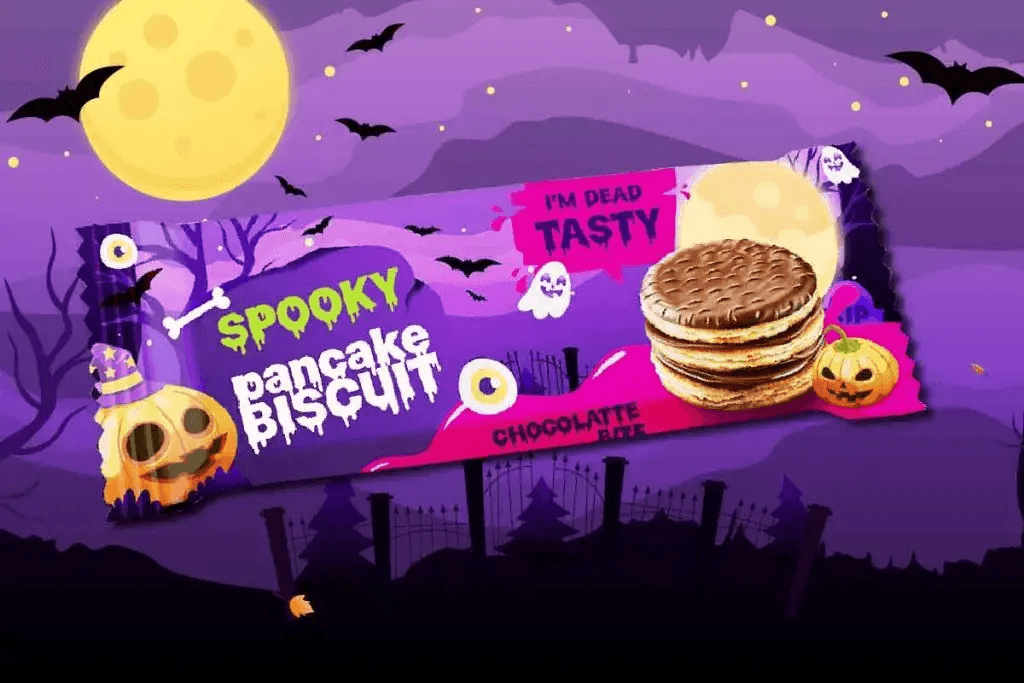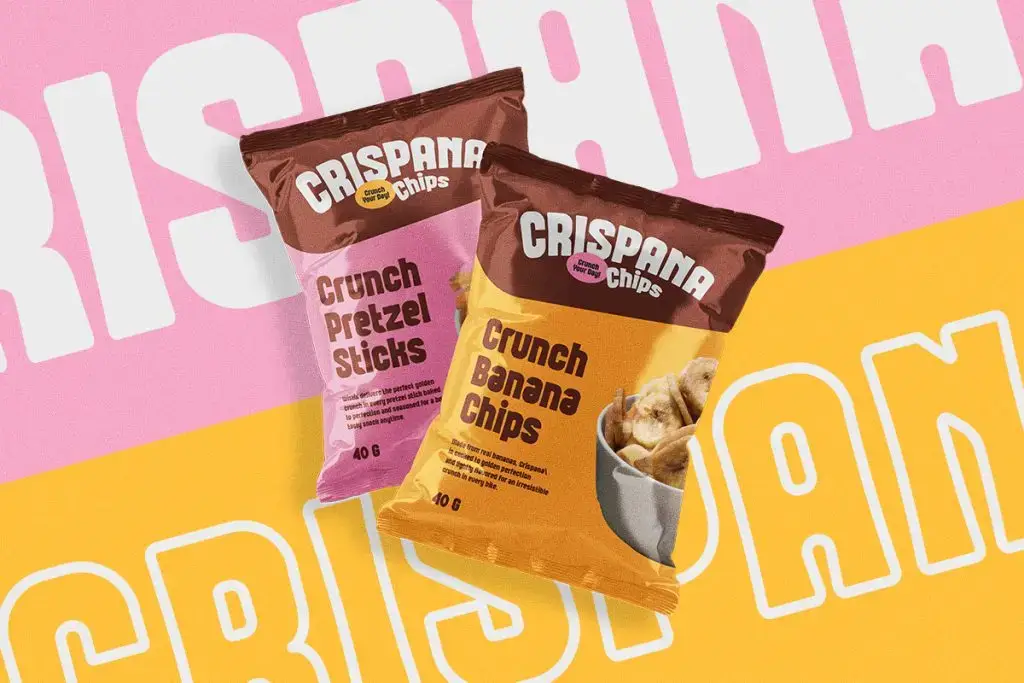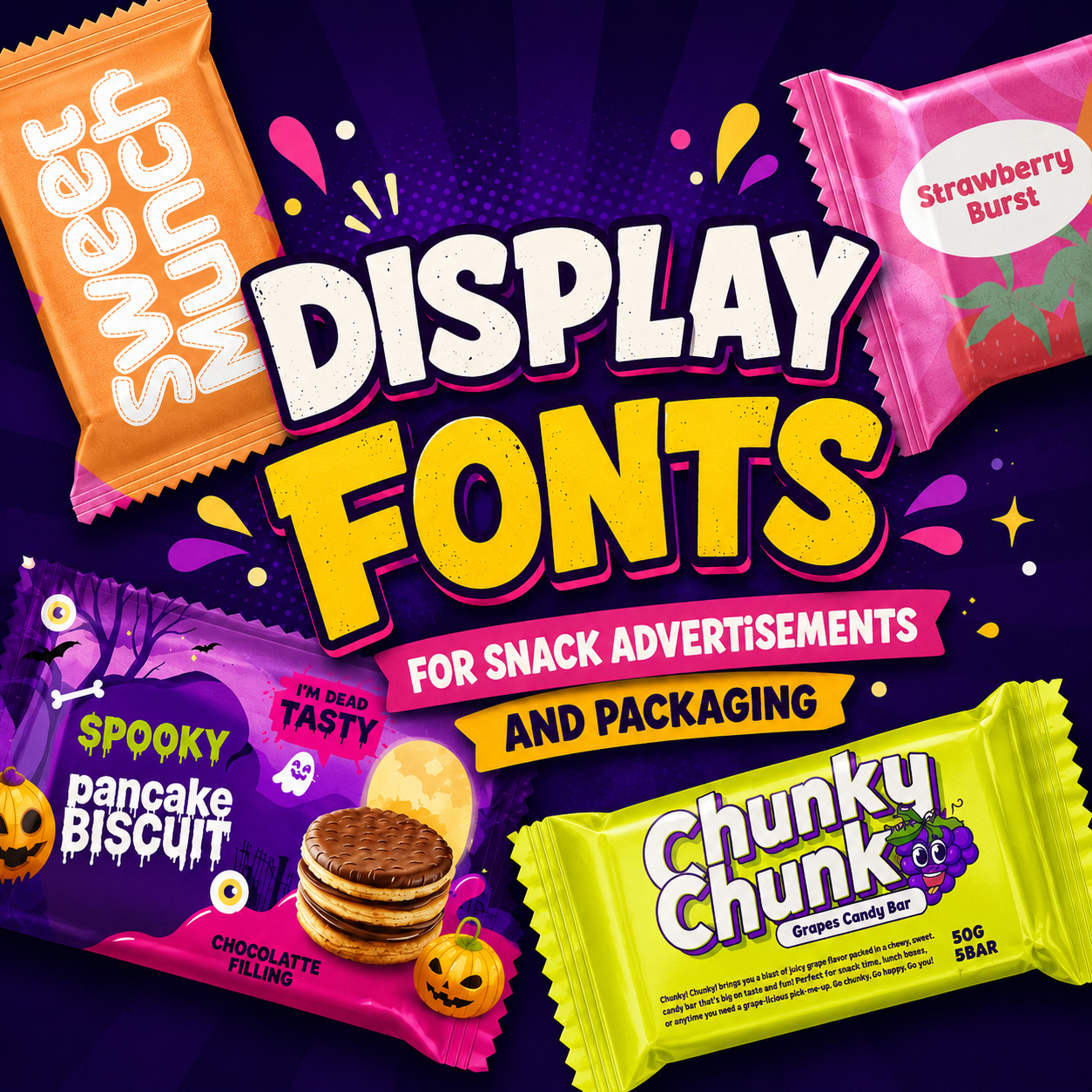
Display fonts for snack advertisements are one of the most important visual elements in modern food branding. In the competitive snack industry, packaging needs to grab attention instantly, especially on crowded store shelves and digital marketplaces. A unique display font can make snack packaging look more playful, delicious, bold, or memorable within seconds.
From candy wrappers and cookie boxes to fun drink labels and social media promotions, typography helps create emotional connections with customers. The right display font can communicate whether a snack is sweet, crunchy, fun, nostalgic, or even adventurous. In this article, we’ll explore why typography matters in snack branding and recommend five standout fonts: Boldova, Chubzy, Glibby, Slime Rage, and Snaklet.
Why Typography Matters in Snack Packaging
Creating a Strong First Impression
When customers walk through a supermarket aisle, they usually make purchasing decisions very quickly. Packaging design plays a huge role in attracting attention, and typography is often the first thing people notice.
A playful font can make snacks feel more fun and family-friendly, while a chunky retro font can create nostalgia and excitement. Good typography helps brands stand out from competitors and makes products easier to remember.
Building Brand Personality
Fonts help communicate a snack brand’s personality. For example:
- Rounded fonts often feel cheerful and kid-friendly.
- Bold retro fonts create energetic and nostalgic vibes.
- Dripping or slime-inspired fonts feel experimental and playful.
- Thick, chubby lettering can make snacks look indulgent and satisfying.
Choosing the right font helps customers immediately understand the mood and style.
Improving Packaging Design
Typography is not only decorative. It also improves readability and visual balance in packaging layouts. A strong display font can work perfectly for:
- Product names
- Promotional headlines
- Limited edition labels
- Snack advertisements
- Social media graphics
- Food truck branding
- Menu boards
That’s why many successful snack brands invest heavily in typography design.
Best Display Fonts for Snack Advertisements
Here are five creative fonts that work beautifully for snack advertisements and packaging designs.
1. Boldova
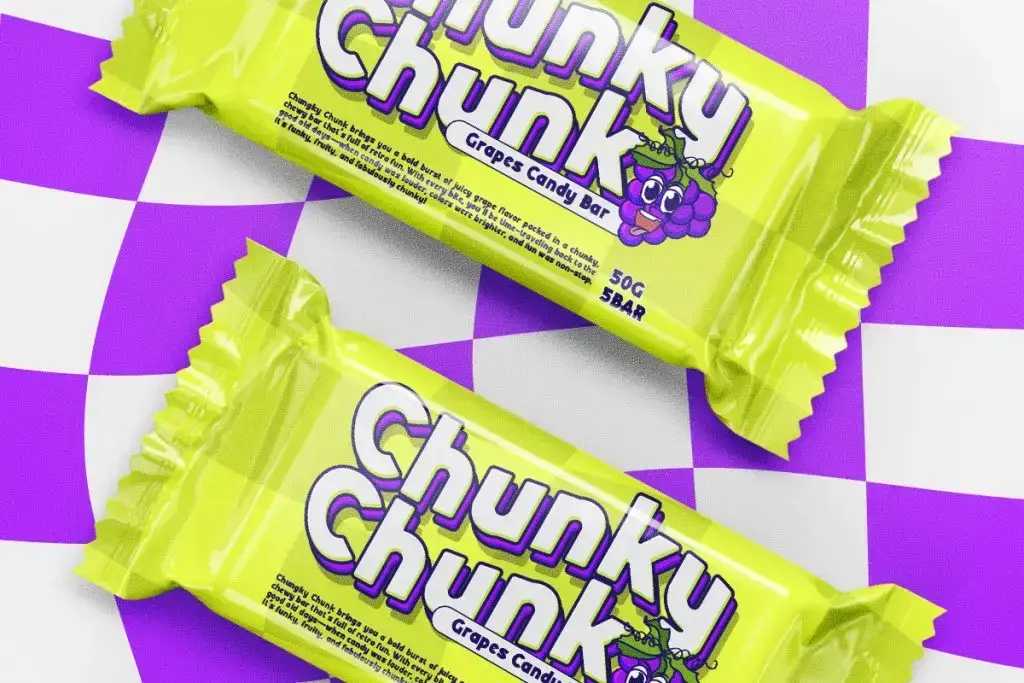
Font Overview
Boldova is a chunky retro-inspired display font with thick, rounded lettering, playful shadows, and vibrant energy. Its funky style instantly evokes a nostalgic feeling reminiscent of vintage snack advertisements from the 70s and early 90s.
The bold shape and layered shadow effect make the font highly visible, even from a distance. Boldova feels energetic, youthful, and excited, making it ideal for brands targeting younger audiences.
Why Boldova Works for Snack Packaging
- Thick bold letters create strong shelf visibility.
- Funky retro style adds nostalgic charm.
- Great for candy, chips, popcorn, and soda branding.
- Highly eye-catching for advertisements and social media.
Best Use Cases
Boldova works perfectly for:
- Candy packaging
- Retro snack branding
- Popcorn advertisements
- Fun beverage labels
- Youth-oriented snack campaigns
Its energetic appearance helps products look playful and impossible to ignore.
2. Chubzy
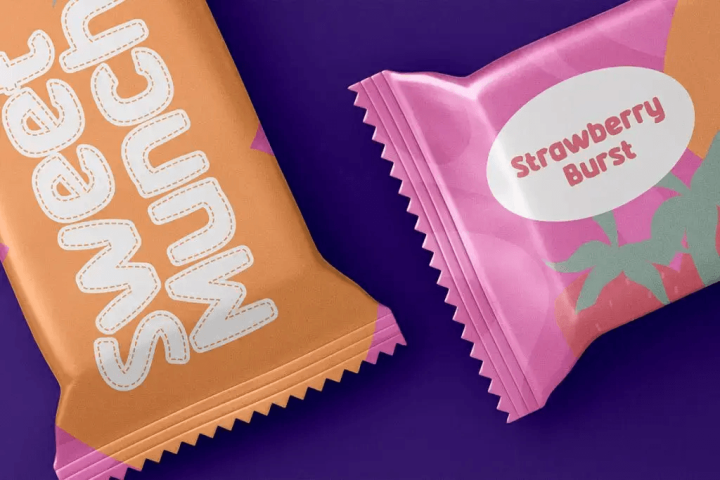
Font Overview
Chubzy is a soft, rounded display font with oversized bubble-like characters. The thick typography creates a warm and friendly feeling, making snacks appear more delicious and approachable.
The font has a cheerful, cartoon-like personality that fits perfectly with colorful packaging and playful branding.
Why Chubzy Works for Snack Packaging
- Rounded shapes create a soft and sweet impression.
- Excellent for kid-friendly snack products.
- Bold letters improve readability on packaging.
- Works beautifully with colorful illustrations and mascots.
Best Use Cases
Chubzy is ideal for:
- Cookie packaging
- Ice cream branding
- Sweet dessert labels
- Kids’ snack products
- Bubble tea advertisements
Its chubby design makes products feel comforting, fun, and satisfying.
3. Glibby
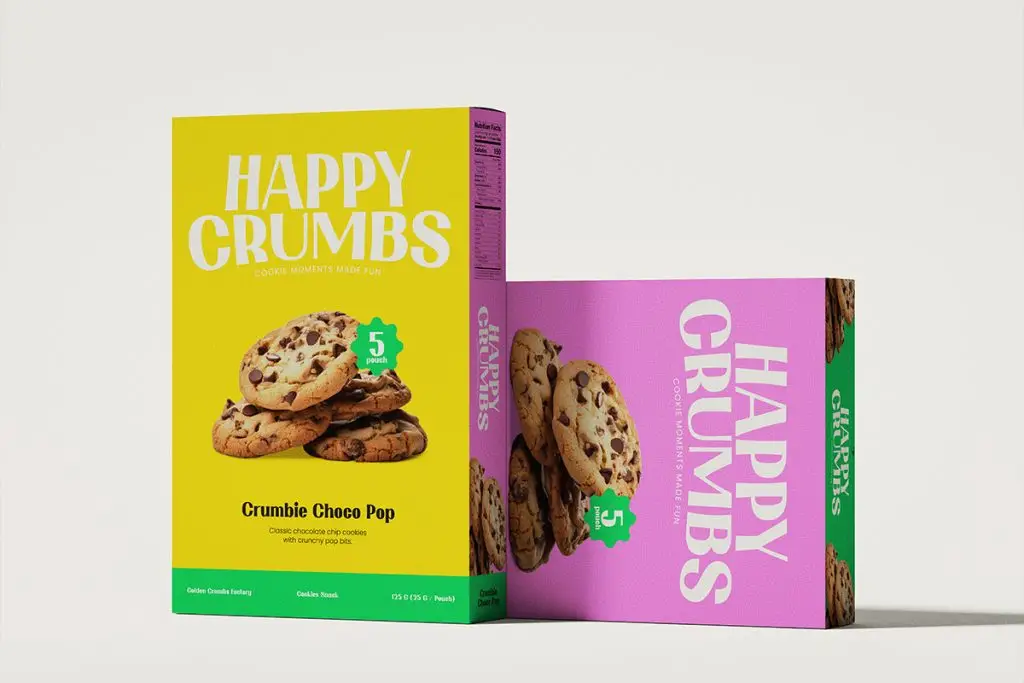
Font Overview
Glibby is a clean and quirky display font designed for playful branding projects. Its tall, bold characters and smooth curves give it a cheerful and modern personality.
Compared to heavier retro fonts, Glibby feels cleaner and more versatile while still maintaining a fun appearance.
Why Glibby Works for Snack Packaging
- Friendly shapes create approachable branding.
- Great balance between playful and professional.
- Perfect for modern snack brands and cafes.
- Easy to read on labels and digital advertisements.
Best Use Cases
Glibby works well for:
- Bakery logos
- Snack café branding
- Cookie snack packaging
- Candy advertisements
Fonts like Boldova, Chubzy, Glibby, Slime Rage, and Snaklet each bring unique personalities that can help snack packaging stand out in crowded markets. Whether you want something retro, playful, chubby, experimental, or modern, the right display font can make your snack branding more memorable and visually exciting.
If you want to improve your branding even further, don’t forget to explore typography trends and experiment with creative packaging layouts that match your font style.